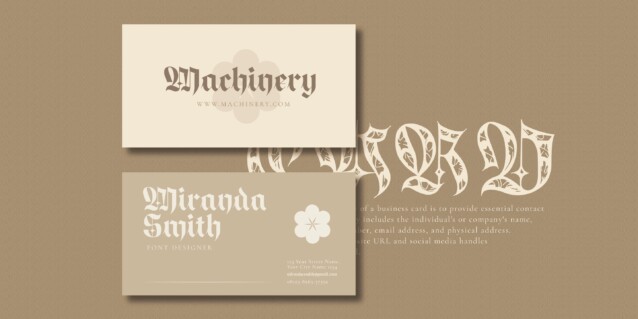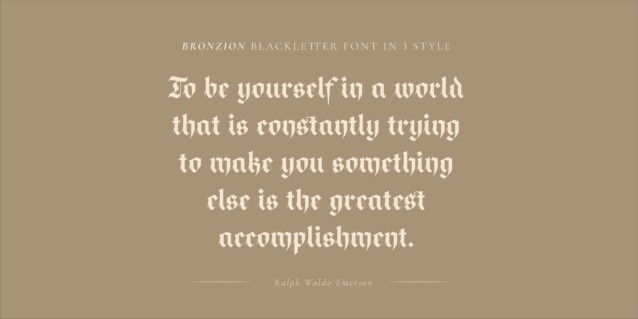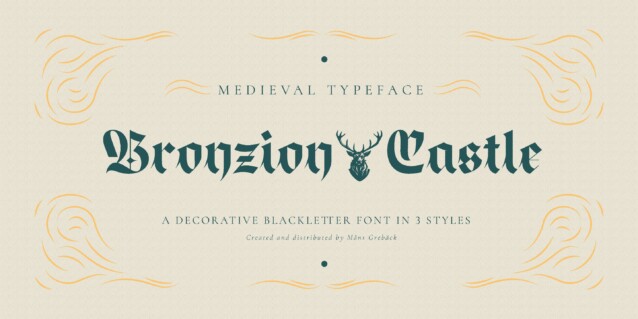
Bronzion Castle Font is a captivating blackletter typeface that exudes a unique blend of boldness and a dynamic, distressed aesthetic. With its dark ages inspiration, Bronzion is a captivating blend of calligraphy and heavy metal undertones. The typeface captures the ornamental beauty of middle ages manuscripts while catering to modern design needs. It has extensive lingual support, covering all Latin-based languages, from Northern Europe to South Africa, from America to South-East Asia. It contains all characters and symbols you’ll ever need, including all punctuation and numbers.